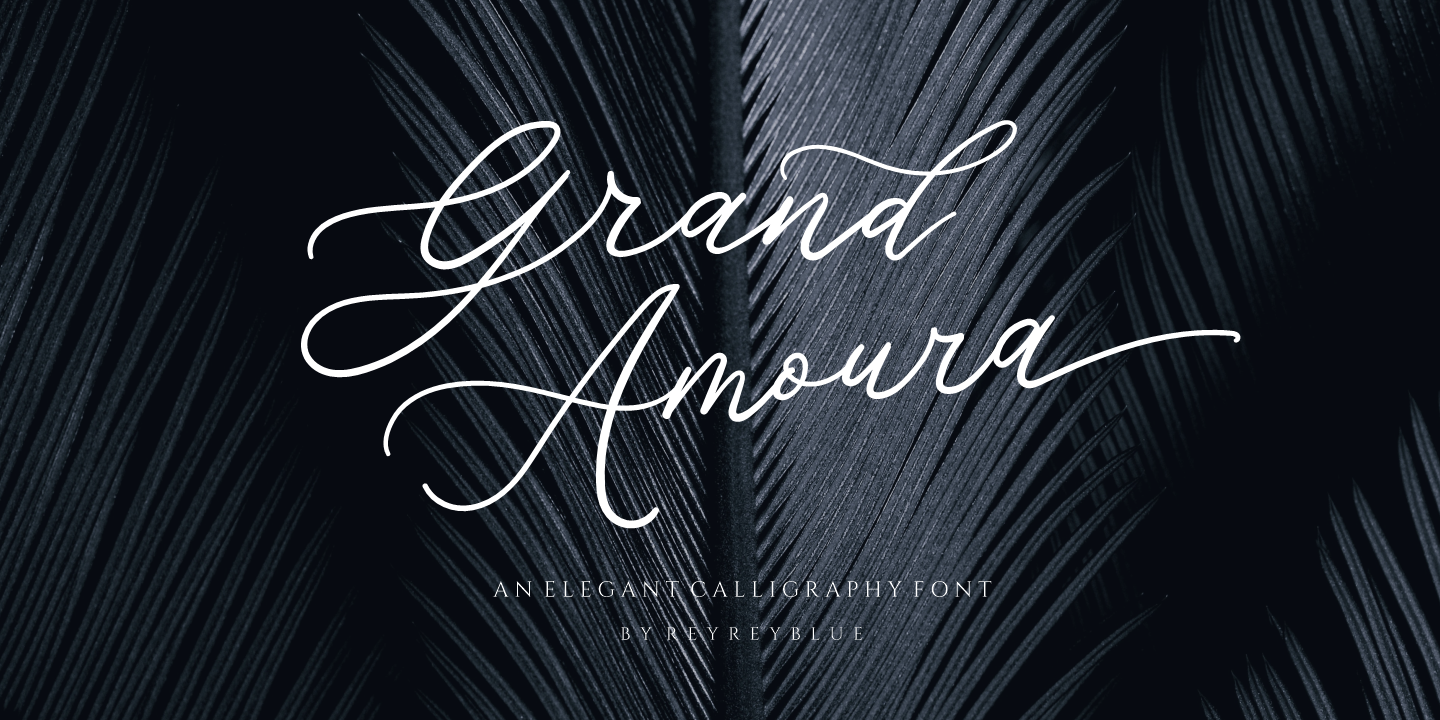
Grand Amoura Font is perfect for luxury wedding invitations, high-end romantic restaurants, elegant jewelry branding, premium cosmetics packaging, sophisticated love letters, exclusive bridal boutiques, romantic French bistros, luxury perfume labels, upscale anniversary celebrations, and refined romantic lifestyle brands.
Grand Amoura Font is exciting because it embodies opulent romance and sophisticated passion with lavish letterforms that whisper of Parisian elegance and timeless love affairs, making it perfect for brands that want to communicate luxury romance, refined intimacy, and the exquisite beauty of grand amour.
The Grand Amoura Font family includes regular and italic weights with romantic flourishes, luxury-inspired ornaments, and passionate decorative elements, providing designers with elegant tools for creating typography that speaks the language of love with sophisticated grace and luxurious appeal.
When your project demands luxury romance and sophisticated passion, Grand Amoura Font Free Download provides the perfect typographic declaration of elegant love and refined intimacy. This sumptuous script typeface combines French romantic tradition with contemporary luxury aesthetics, ensuring your designs resonate with affluent audiences seeking authentic romantic experiences and sophisticated emotional expression. The lavish letterforms and romantic styling make this font an essential choice for luxury wedding planners, high-end romantic brands, and any application where grand romance, sophisticated love, and luxury intimacy are crucial for creating unforgettable experiences that celebrate the finest expressions of human passion and the timeless elegance of true amour.